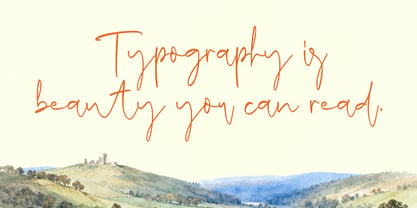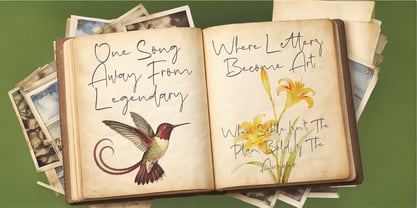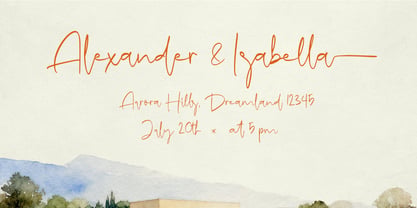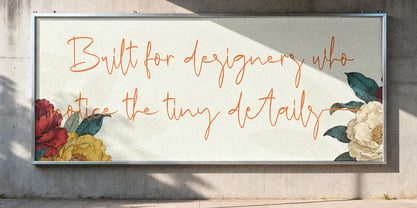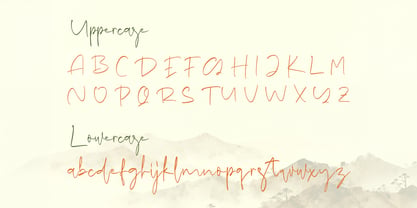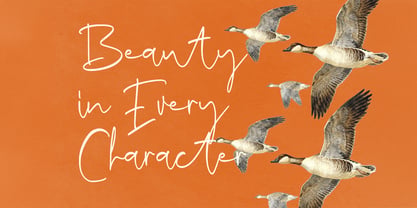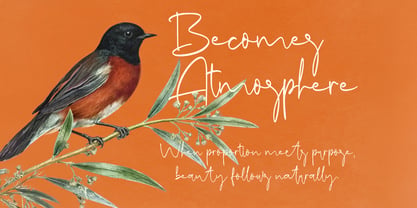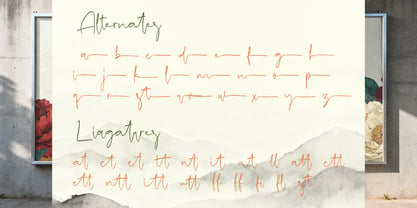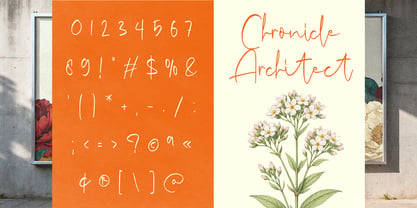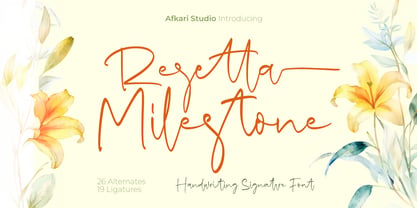
Resetta Milestone
The Resetta Milestone Font Family was designed by Musthafa Kamal Emje and published by Afkari Studio. Resetta Milestone contains 1 styles. More about this family
Resetta Milestone is a modern handwritten signature script font designed to deliver elegant, natural, and stylish typography for professional creative projects. Inspired by authentic handwriting, this font features smooth flowing strokes and graceful letter connections that create a premium signature-style appearance. Carefully crafted for designers who need typography with both personality and readability, Resetta Milestone works beautifully across digital and print applications. Its natural writing flow adds warmth and sophistication, making it ideal for branding, logos, and personal signature-style designs. Whether you're designing logos, packaging, wedding invitations, social media graphics, or personal branding materials, this font helps your typography stand out with a refined handwritten touch. Features; - Elegant handwritten signature script style - Smooth and natural writing flow - Uppercase & lowercase characters - Numbers & punctuation - Smooth script connections - Ideal for branding & signature logos - Accessible in Adobe Illustrator, Adobe Photoshop, Adobe InDesign, and even work on Microsoft Word - PUA Encoded Characters – Fully accessible without additional design software. - Mültîlíñgúãl Sùppört for; ä ö ü Ä Ö Ü ß ¿ ¡ Whether you're creating premium branding, stylish packaging, or elegant promotional materials, Resetta Milestone helps your design stand out with warmth and personality. Add a graceful and memorable touch to your next creative project with this signature script typeface.